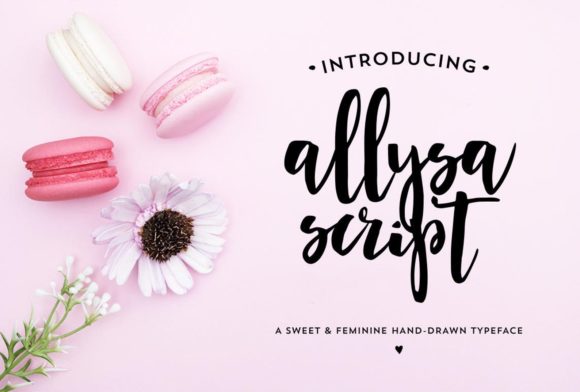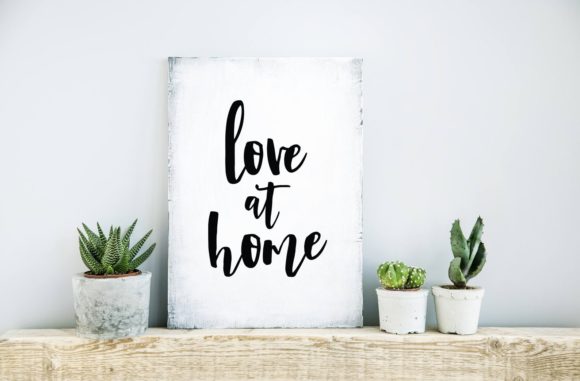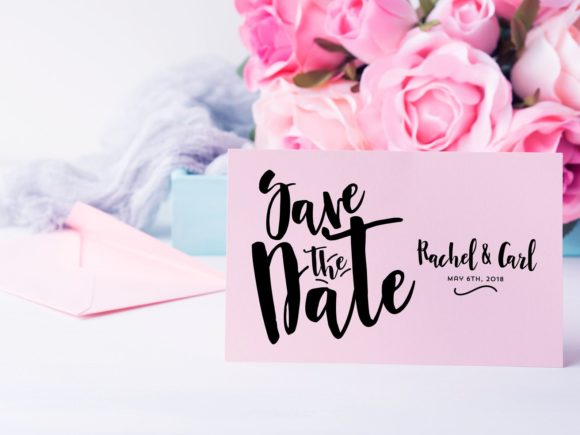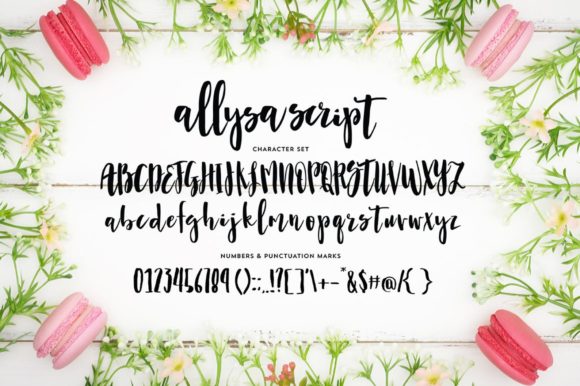
Allysa Script Font
About Allysa Script Font
Allysa Script is a sweet and delicate handwritten font. It looks stunning on wedding invitations, thank you cards, quotes, greeting cards, logos, business cards and every other design which needs a handwritten touch.